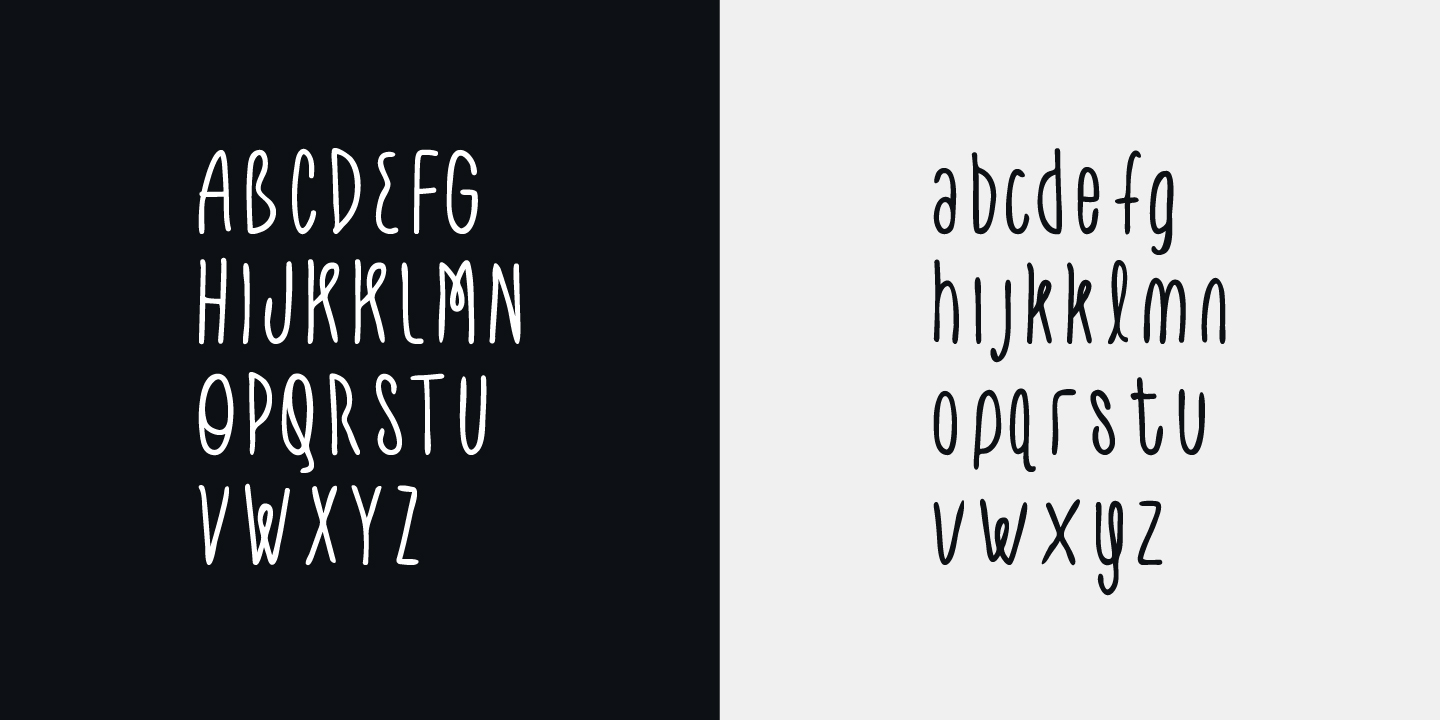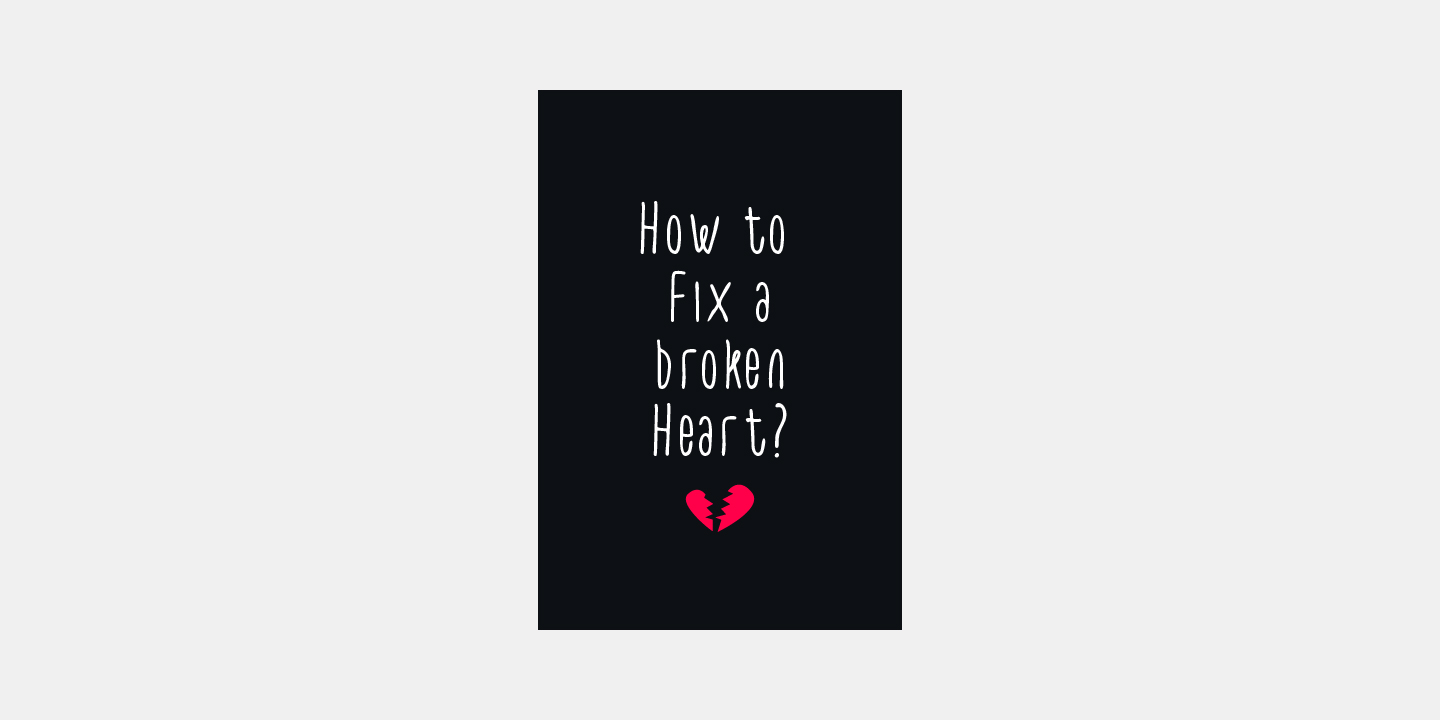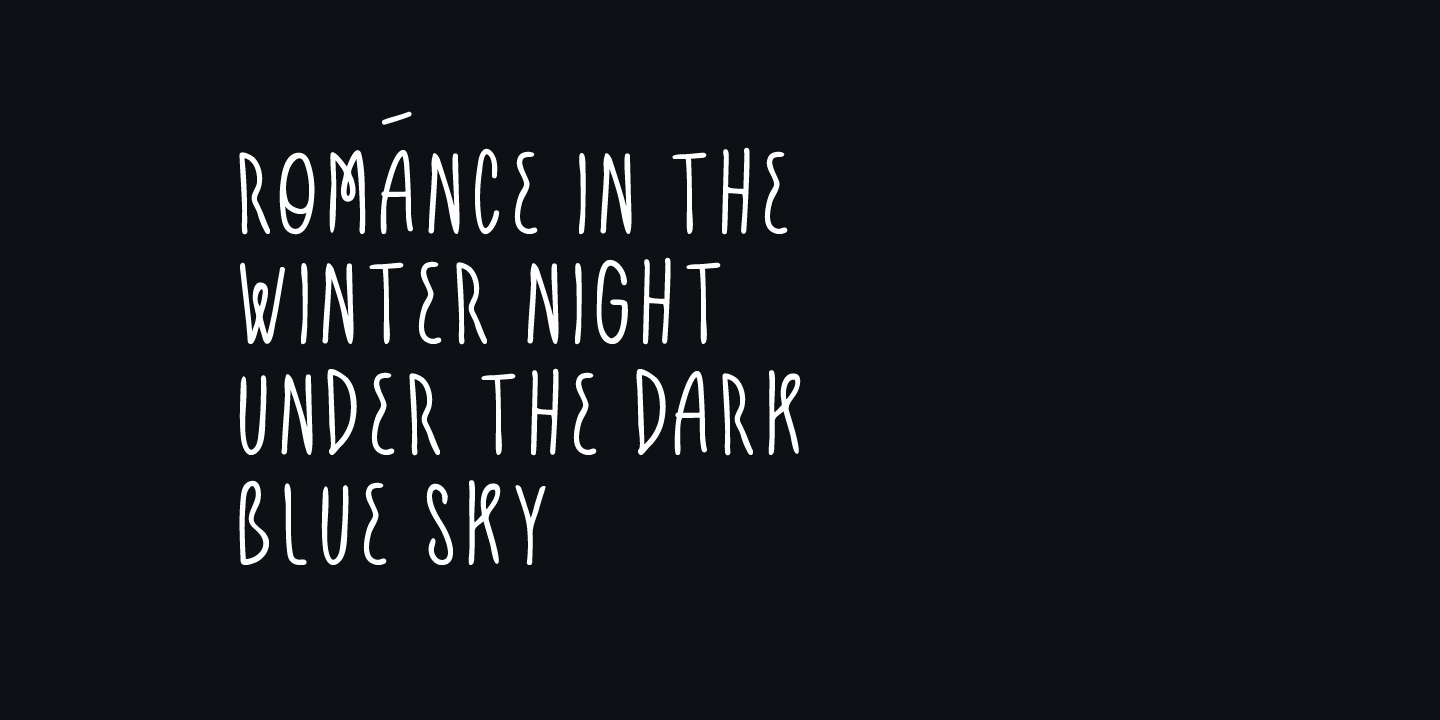
MBF Silver Night
A fun, modern handwritten font by moonbandit font foundry. Inspired from the memories of childhood and the playful nature of it, Silver Night is the perfect font if you need a personal touch in your design projects. This typeface consist of uppercase, lowercase and also multilingual support.